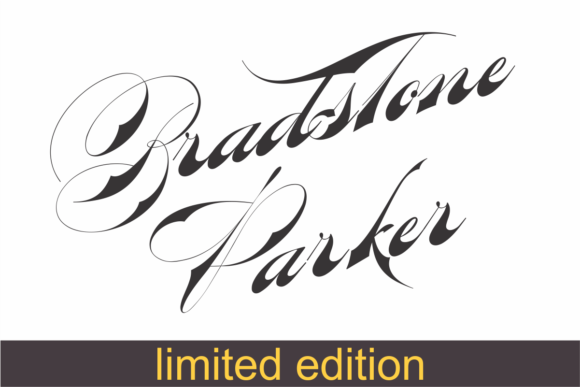
The Elegant Bradstone-Parker Limited Font: A Designer’s Delight
I still remember the time I was working on a wedding invitation project, and my client asked for a font that exuded elegance and sophistication. I scoured the internet, tried countless fonts, but nothing seemed to fit the bill. That’s when I stumbled upon the Bradstone-Parker Script, and it was love at first sight! The beautiful swashes and classic lettering instantly elevated my design, and my client was thrilled. In this article, I’ll be sharing my experience with the Bradstone-Parker Limited Font, a smaller, yet stunning version of the original script.
- ✨ Elegant and classic design that’s perfect for high-end projects
- ✅ Beautiful swashes and ligatures that add a touch of sophistication
- ⚡️ Highly legible, even at smaller font sizes
- 🎨 Versatile and can be used for a variety of design projects, from wedding invitations to branding and packaging
While the Bradstone-Parker Limited Font is an amazing addition to any design project, there are a few things to keep in mind:
- 🤔 Limited character set compared to the full version of the font
- ⚠️ May not be suitable for body text or long-form content due to its ornate nature
- Experiment with the font’s OpenType features, such as swashes and ligatures, to add visual interest to your design
- Access the font’s glyphs and stylistic alternates by using the “Glyphs” panel or “Character” panel
The Bradstone-Parker Limited Font was inspired by the classic scripts of the early 20th century. Imagine a vintage typewriter, with its elegant letters and flowing connections. The font’s designer aimed to capture the essence of this bygone era, while making it suitable for modern design projects.
Q: What is the main difference between the Bradstone-Parker Limited Font and the full version?
A: The main difference is the character set. The limited version has a smaller character set, while the full version has a more extensive set of characters, including more swashes and ligatures.
Q: Is the Bradstone-Parker Limited Font suitable for body text?
A: While the font is highly legible, its ornate nature makes it more suitable for titles, headings, and short-form content. For body text, a simpler font may be more suitable.